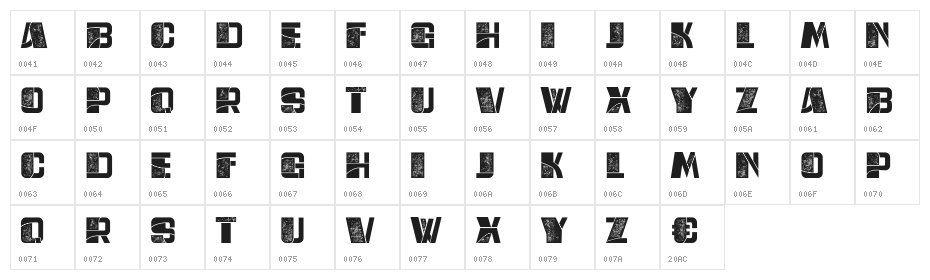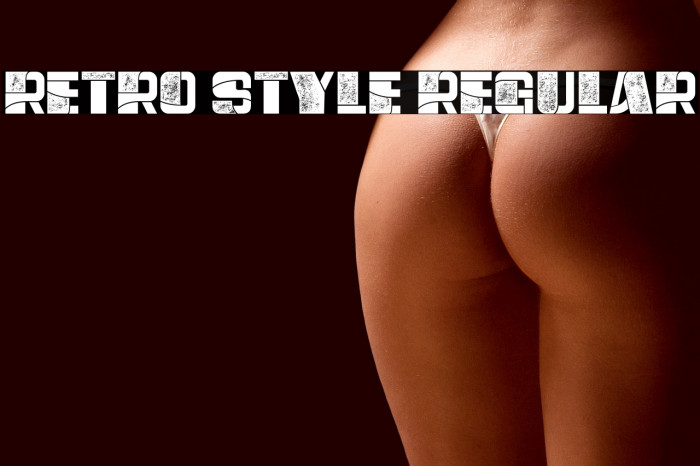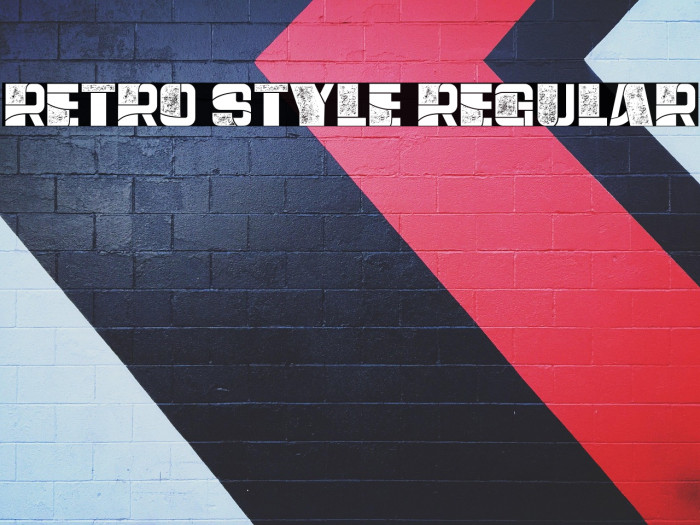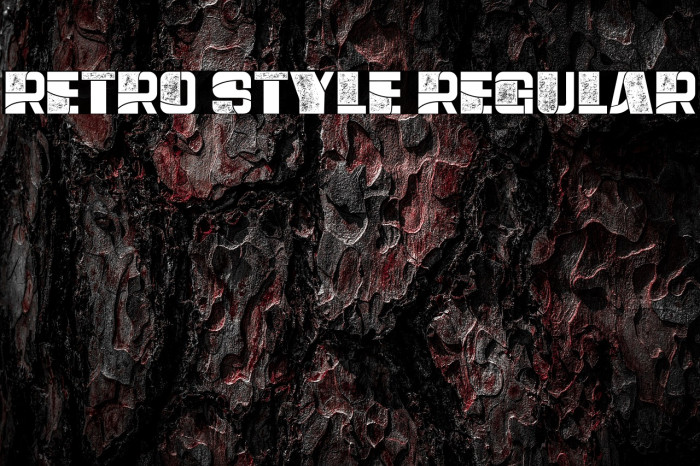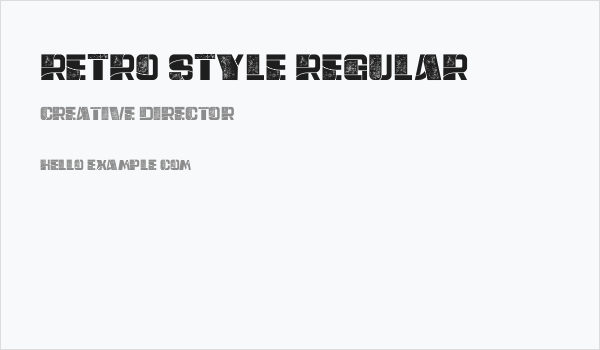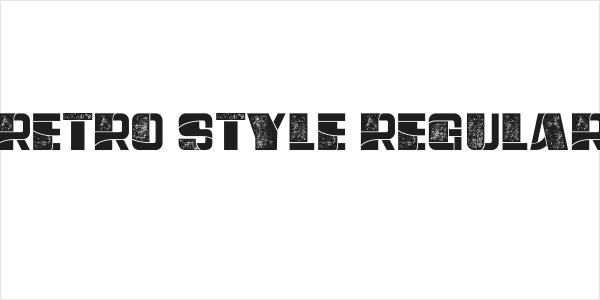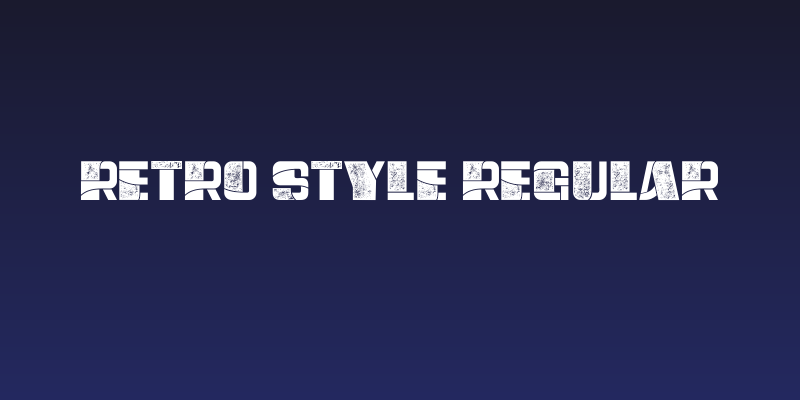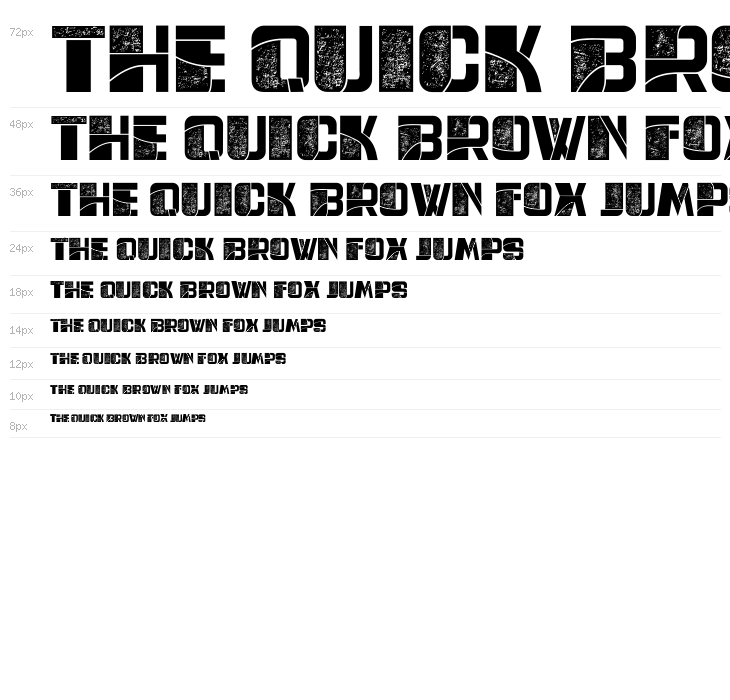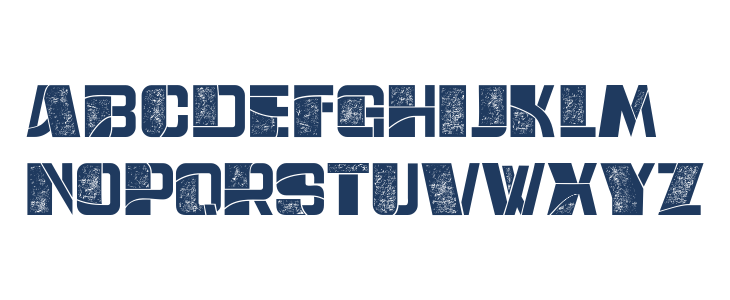
Retro Style Regular Font
Retro Style Regular Description
This font features a bold, retro-inspired design with a distressed texture that gives it a vintage, worn look. The characters are blocky and geometric, with sharp angles and a solid presence. The distressed effect adds a layer of depth and character, making it ideal for projects that require a nostalgic or rugged aesthetic. The uppercase letters are uniform in height, creating a cohesive and structured appearance. This font is perfect for creating eye-catching headlines, posters, and branding materials that need a touch of retro flair.
| Proposed Projects | Ideal for vintage-themed posters, branding, logos, and eye-catching headlines. |